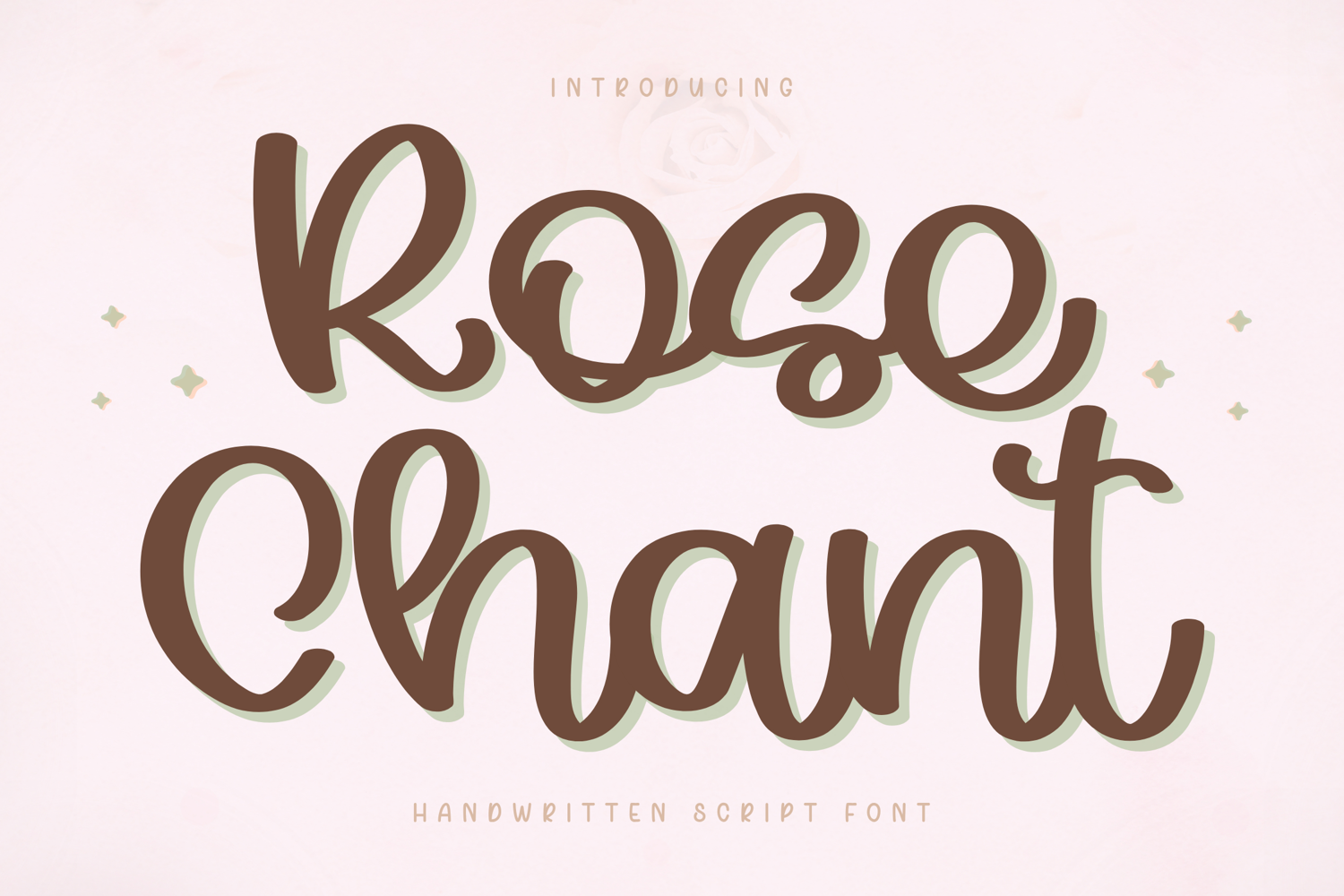
Rose Chant - Handwritten Script Font
Rose Chant – Handwritten Script Font
Rose Chant is a soft and elegant handwritten script font inspired by romantic and timeless beauty. With its smooth curves and graceful flow, this font creates a delicate and feminine look that feels both modern and sophisticated.
Designed to bring a gentle charm to your creations, Rose Chant is perfect for branding, logos, social media, and wedding-related designs. Its natural handwritten style adds warmth and personality while maintaining a clean and polished appearance.
Rose Chant is designed with soft curves and balanced spacing, making it ideal for elegant and romantic design projects.